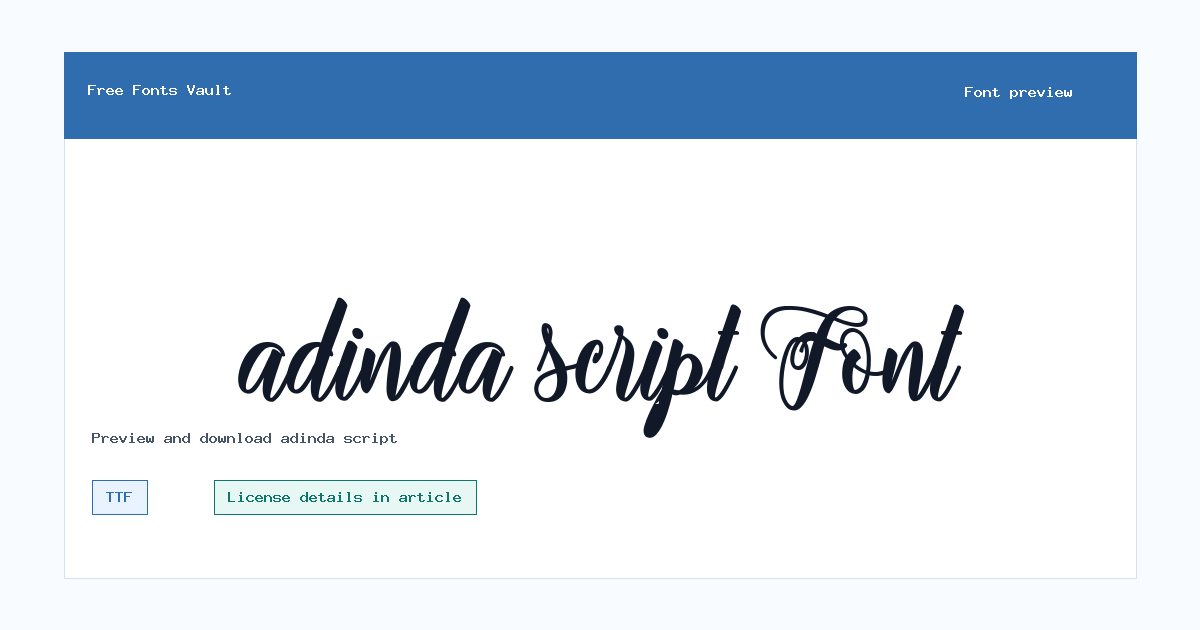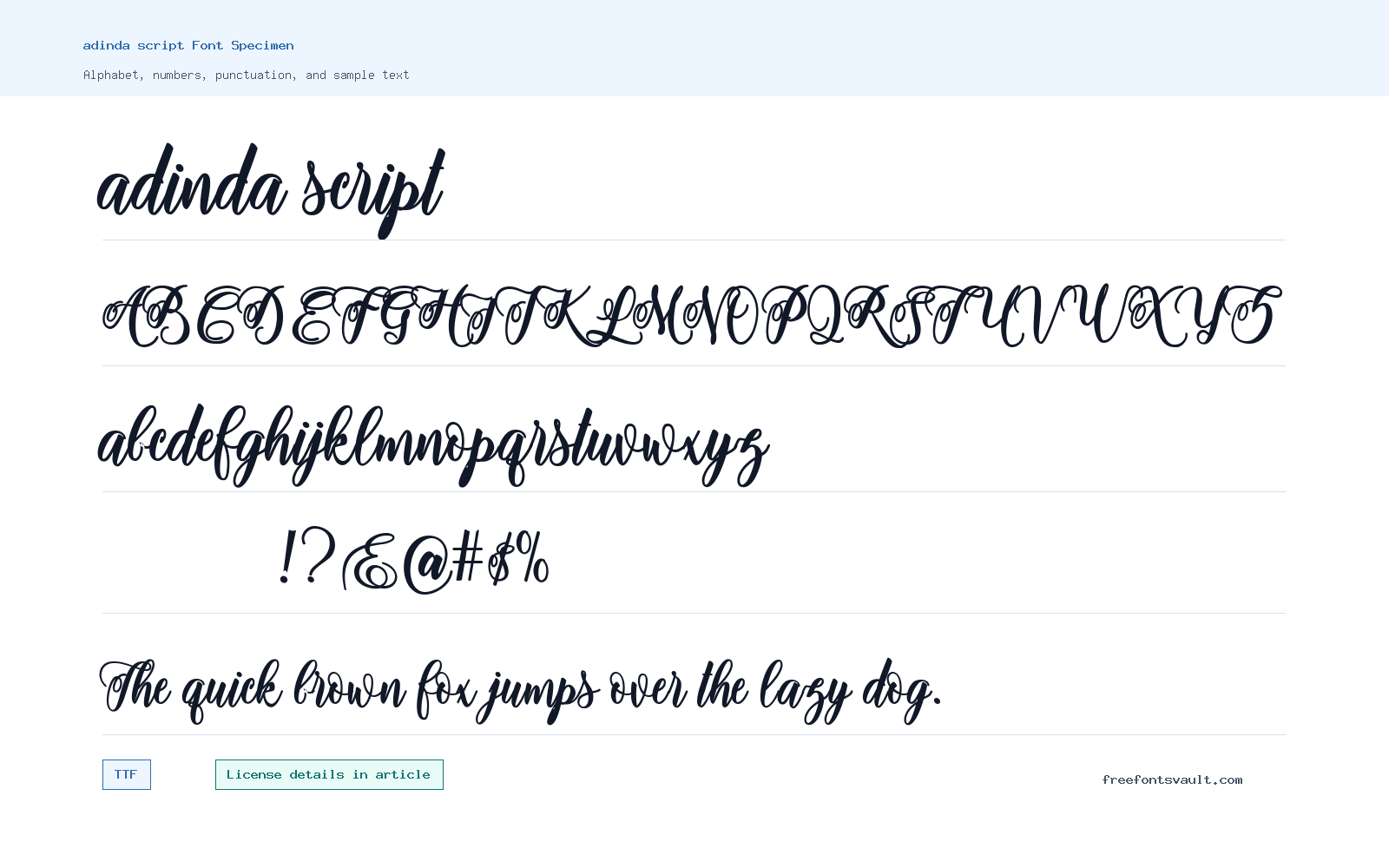
adinda script
- Designer adefastudio
- Foundry adefa studio
adinda script font.
Adinda Script is a regular TTF script font credited to adefastudio, with adefa studio listed as the foundry. It is built for short expressive text where a handwritten or calligraphic tone is more useful than plain typography.
About Adinda Script
Script fonts depend heavily on the words you set. Adinda Script should be tested with real names, greetings, product labels, invitation headings, and quote lines before downloading. A phrase that looks graceful at one size may feel crowded at another, especially around capital letters, repeated letters, and punctuation.
Only one regular TTF variant is listed, so plan your layout around one main style. Instead of relying on bold or italic variants, create contrast with size, color, spacing, and a simpler companion font. Use Adinda Script for the words that need personality, then use a clean sans serif or serif for dates, details, descriptions, and paragraphs.
- Script-style display direction for short expressive text.
- Credited to adefastudio, with adefa studio listed as the foundry.
- Best tested with real names, greetings, and decorative phrases.
- Pairs well with a simpler companion font for supporting copy.
- Wedding and event invitation headings.
- Greeting cards, quote images, and personal stationery mockups.
- Product labels, boutique branding tests, and social graphics.
- Short name treatments and decorative title lines.
- Personal preview projects where a script accent is needed.
Preview your exact words at the final size. Avoid long paragraphs and all-caps settings if readability drops. Use extra spacing and a plain companion font when the script needs room to breathe. Also compare one-word and two-word samples, because script rhythm often changes when the letters begin to connect across a longer phrase.
What is Adinda Script best for?
It is best for short decorative text such as invitations, names, greeting cards, quotes, labels, and social graphics.
Does Adinda Script include multiple styles?
Only one regular variant is listed, so additional weights or italics are not confirmed.
What should I preview first?
Preview names, capitals, punctuation, and your final phrase length. Script fonts can change a lot depending on the exact letters used.